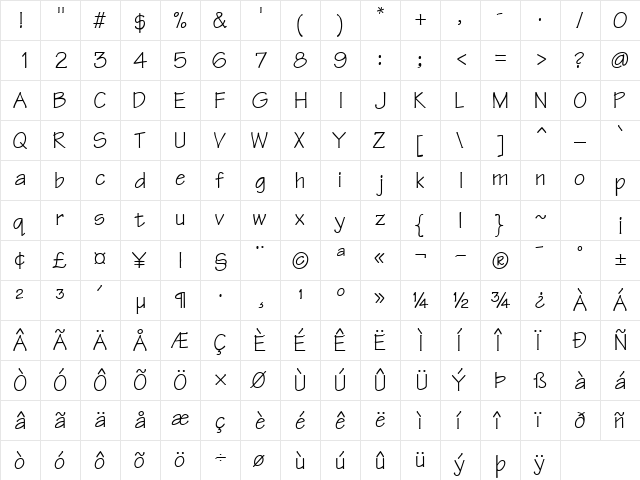
ManualSSK Regular Font Preview
ManualSSK Regular
ManualSSK Regular Font Details
Design Context for ManualSSK Typeface
ManualSSK is a composed and adaptable typeface that performs quietly and consistently across a wide range of design contexts.